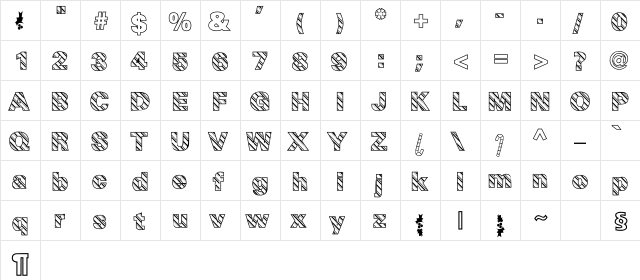
Pep O Mint Normal Normal
Design Context for Pep O Mint Normal Typeface
Pep O Mint Normal is a composed and adaptable typeface that performs quietly and consistently across a wide range of design contexts.